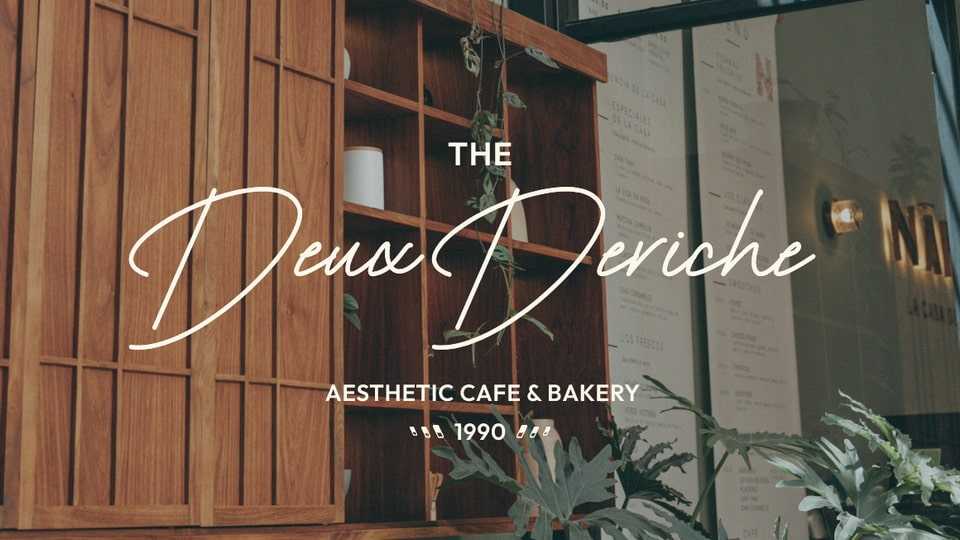
Cafe De Paris Font › Fontesk – Download Grátis
Download Cafe De Paris font, a perfect script and sans serif for all your design needs. The elegant handwritten font adds a personal touch, while the classic serif font adds sophistication.
Designer: Muwatta Studio